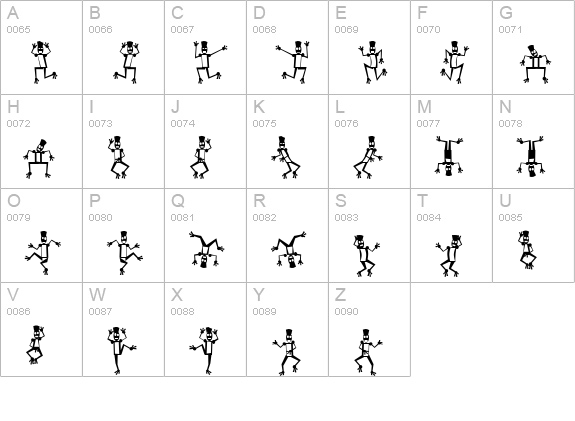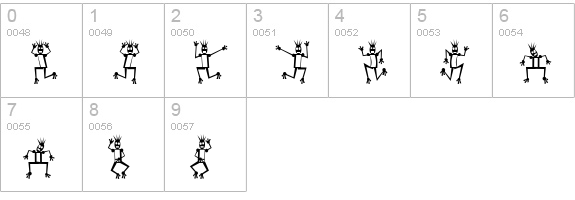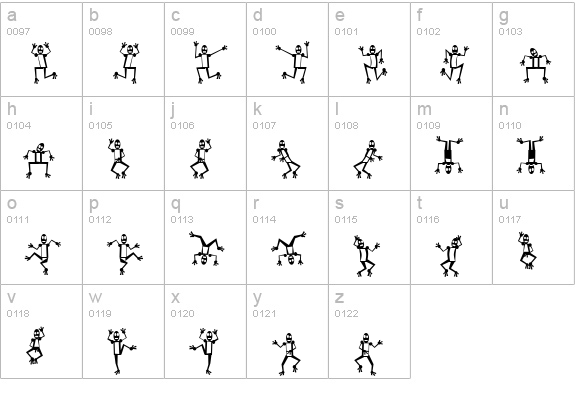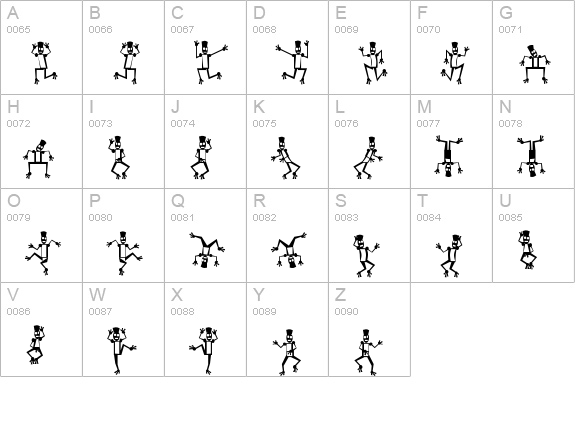
Mr Robo Funk Font Details
Introducing Mr Robo Funk font, a quirky and futuristic typeface that brings a touch of whimsy to any design project! This unique font is perfect for adding a playful and modern vibe to your creations. With its sleek lines and robotic-inspired design, Mr Robo Funk is sure to make a bold statement. Best of all, this font is available for free download at FontsMarket.com! Whether you're working on a poster, logo, website, or any other design project, Mr Robo Funk font is a versatile choice that will help your work stand out. Don't miss out on the opportunity to add this fun and innovative font to your collection today!